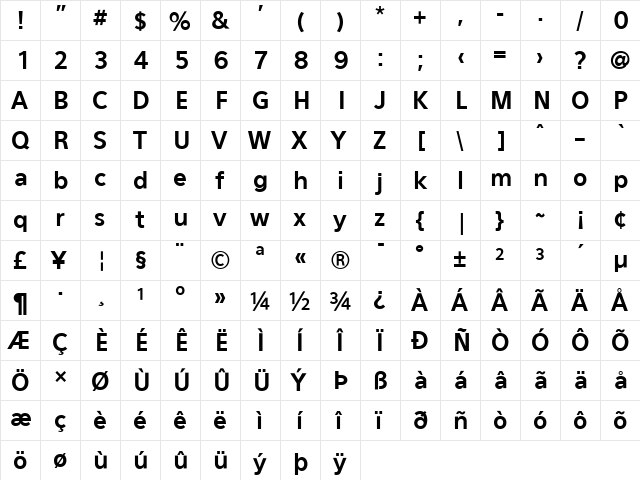
Eau Sans Bold Lining Font Preview
Eau Sans Bold Lining
Eau Sans Bold Lining Font Details
| Style | Sans Bold Lining |
| Foundry | YOFonts |
| Designer | Yamaoka Yasuhiro |
Design Context for Eau Typeface
Eau takes a measured approach to typography — its balanced proportions and neutral character make it a reliable workhorse for both digital and print work. Its bold stroke weight gives it real presence on the page.